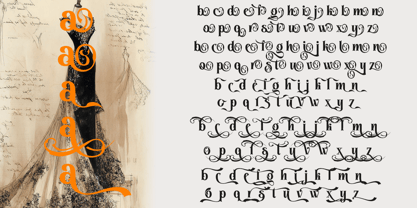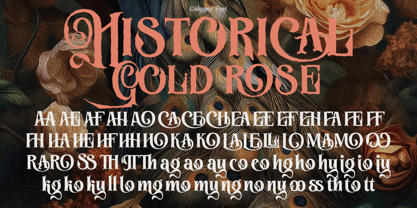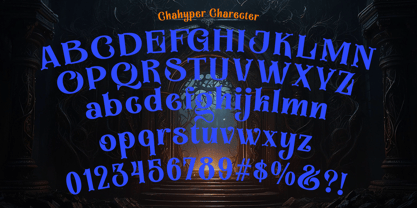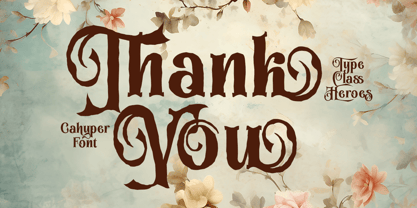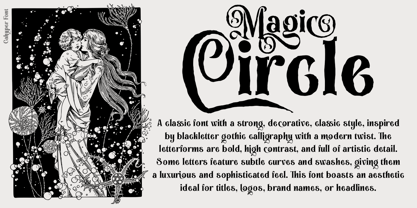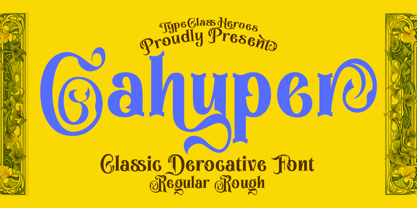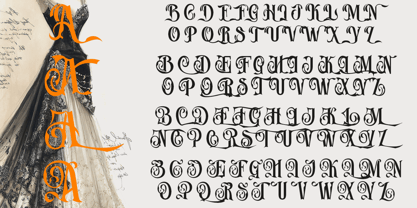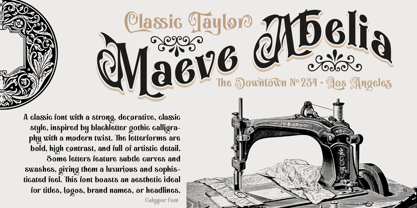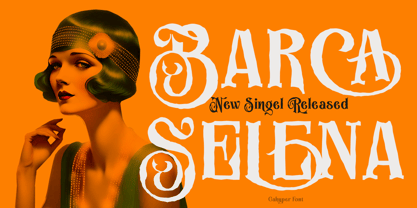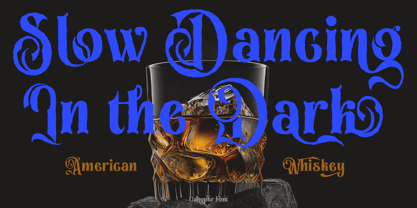
Cahyper
The Cahyper Font Family was designed by Suandana ipandemade and published by TypeClassHeroes. Cahyper contains 2 styles and family package options. More about this family
Introducing Cahyper, a classic font that embodies a strong, decorative style inspired by traditional calligraphy with a contemporary twist. The letterforms are bold and high-contrast, showcasing intricate artistic details that enhance visual appeal. Certain characters feature elegant curves and swashes, imparting a luxurious and sophisticated essence. This versatile font is perfect for a variety of applications, including branding, titles, logos, and headlines, making it an ideal choice for those seeking to create a memorable impression. With its unique design and artistic flair, Cahyper stands out in any project, ensuring your message is delivered with style and elegance.